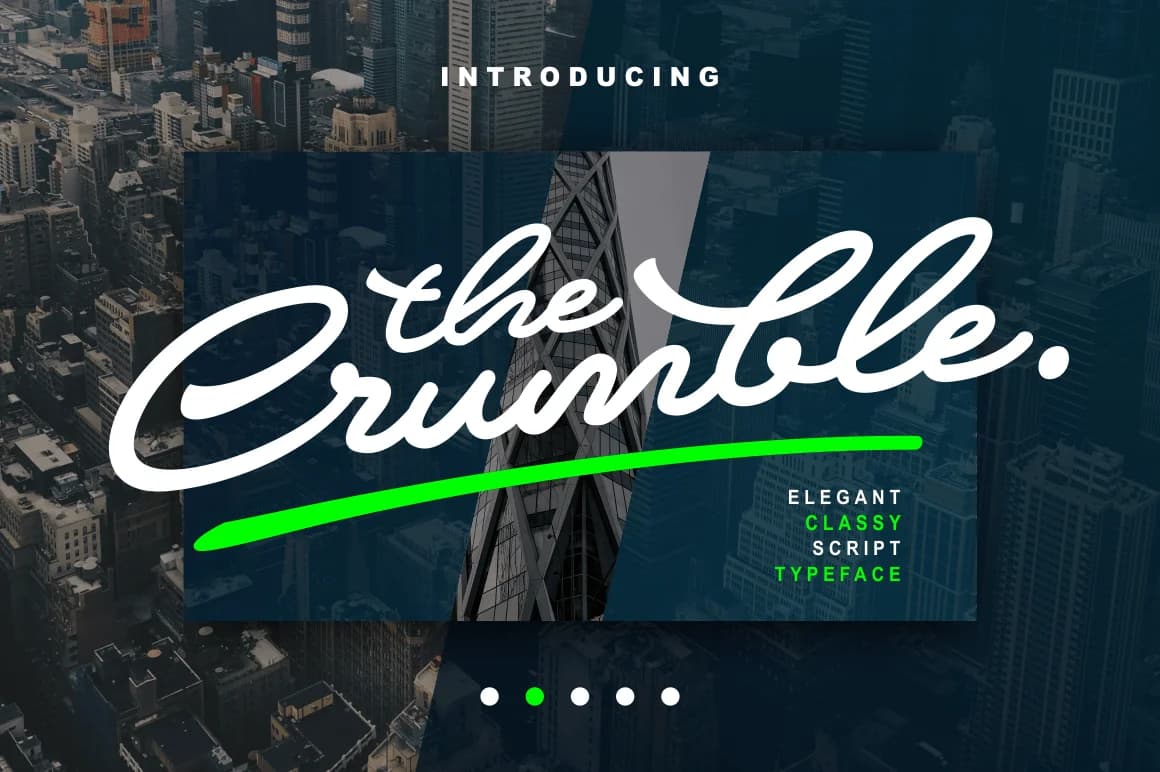
Crumble Font by Subqi Std is a hand-lettered script that combines loose, organic strokes with surprising readability, making it a natural bridge between authentic handwriting and polished typography. The textured letterforms bring an approachable, artisanal quality to any project while maintaining legibility across different sizes and applications. This typeface excels in intimate creative work where personality matters most. Wedding invitation suites gain a personal touch, small-batch product packaging benefits from its warmth, handmade business card designs feel more authentic, and personalized greeting card layouts come alive with character. It's equally effective in digital spaces, think Instagram post captions or Pinterest pins for DIY lifestyle and craft brands, and as blog headers for independent makers sharing their work. The font captures that homemade aesthetic while maintaining the consistency needed for professional layouts. Crafters particularly appreciate its clean letter structure, which translates well to precision cutting and heat transfer applications. The solid glyph coverage ensures you can tackle diverse design needs without workarounds. Whether you're building a cohesive brand identity with a handcrafted feel, designing custom labels for artisan goods, or creating community-focused social content, Crumble Font brings genuine warmth without technical compromise. Find this charming typeface on Creative Fabrica and add authentic character to your next creative project.
- Elegant, Flowing, Crumble
Crumble Font is a script font that shines as a display or heading face. Pair it with a clean sans-serif or serif font for body text β the contrast creates a clear hierarchy while the two styles stay balanced and easy to read.
Crumble Font
by Subqi Std